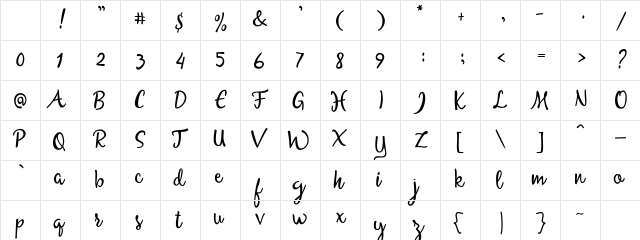
Complete Allessa Script Free Sample Regular glyph index. Displaying only characters natively supported by Allessa Script Free Sample Regular font.
Allessa Script Free Sample flows with the natural rhythm of handwritten lettering, making it ideal for designs that call for warmth and personal expression.
Font Pairing: Combine Allessa Script Free Sample with a simple geometric sans for maximum contrast - the tension between flowing curves and clean structure is a classic typographic pairing.
Pro Tip: Use Allessa Script Free Sample for short runs of text - names, titles, or taglines. Extended body copy in script faces tires the eye quickly.